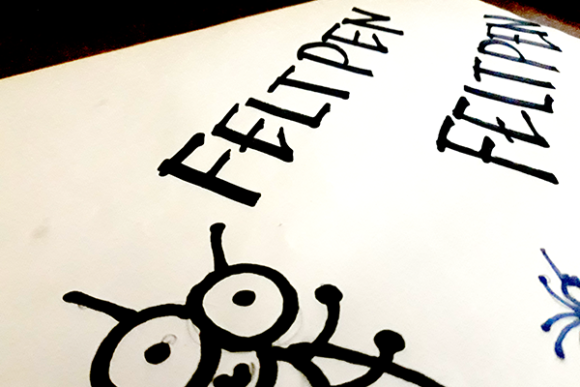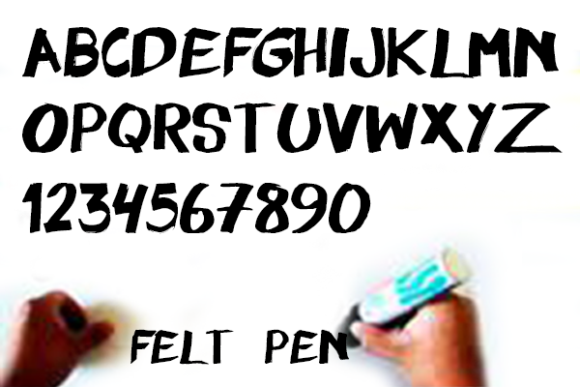
The Felt Pen Font: A Cool and Brushed Display Font for Your Creative Projects
I’ll never forget the time I was working on a project for a client who wanted a bold, eye-catching font to match their brand’s playful personality. I scoured the internet for the perfect font, but nothing seemed quite right. That was until I stumbled upon the Felt Pen font. With its uniquely shaped letters and brushed texture, it was love at first sight! In this article, I’ll share my experience with the Felt Pen font, its features, and how to make the most of it in your creative projects.
A First Impression: What Makes Felt Pen Font So Special
The Felt Pen font is a cool and brushed display font that features imposing and uniquely shaped letters. This font is perfect for designers, crafters, and creative hobbyists who want to add a distinct touch to their creations. Whether you’re working on a logo, a poster, or a social media graphic, the Felt Pen font is sure to make a statement.
What I Love About Felt Pen Font
- ✨ Unique and eye-catching letterforms that add a touch of personality to any design
- ✅ High-quality brushed texture that gives the font a realistic, hand-drawn feel
- ✅ Works well in large sizes, making it perfect for display text and headlines
- ✅ Easy to read, even in smaller sizes
While the Felt Pen font is an excellent choice for many projects, there are a few things to keep in mind. For example, ⚠️ the font may not work as well in very small sizes, as the details can become lost. Additionally, 🤔 some users may find the font a bit too bold or overpowering for certain designs.
The Felt Pen font was inspired by the classic felt-tip pens of the past. The designer wanted to create a font that captured the essence of these pens, with their unique letterforms and textured feel. The result is a font that’s both nostalgic and modern, perfect for designers who want to add a touch of personality to their creations.
Q: What type of projects is the Felt Pen font best suited for?
A: The Felt Pen font is perfect for creative projects that require a bold, eye-catching look, such as logos, posters, social media graphics, and more.